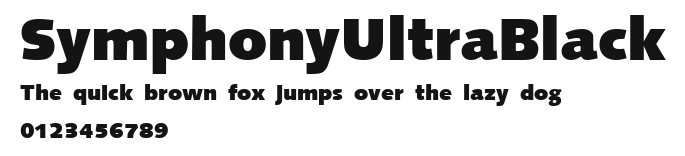
SymphonyUltraBlack Preview
• Font Name: SymphonyUltraBlack
• Font ID: Agfa Miles Inc. Symphony Ultra Black
• Full Font Name: Symphony Ultra Black
• PostScript Name: SymphonyUltraBlack
• Character Count: 244
About SymphonyUltraBlack.ttf
SymphonyUltraBlack.ttf is a modern, elegant sans-serif font designed for ultimate readability and visual harmony. Perfect for branding, headlines, web design, and print materials.